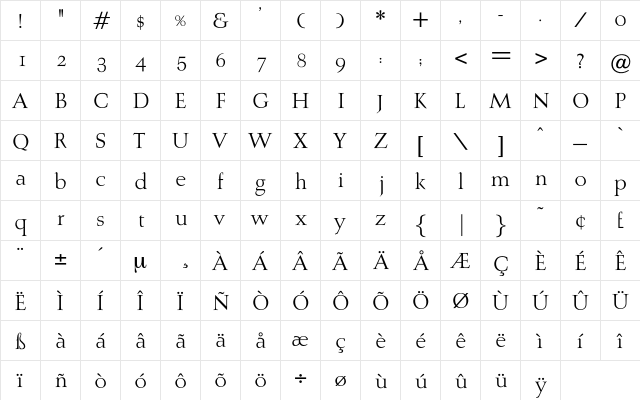
LizardMedieval Regular
Design Context for LizardMedieval Typeface
LizardMedieval is a composed and adaptable typeface that performs quietly and consistently across a wide range of design contexts.